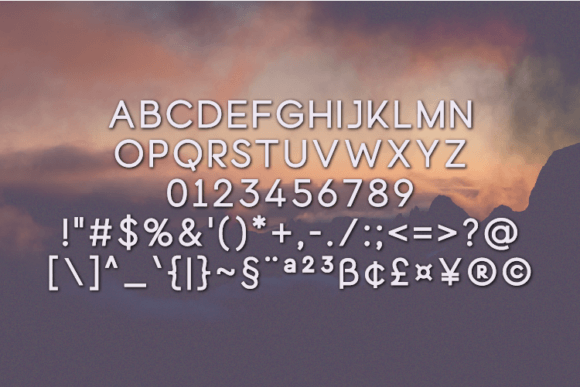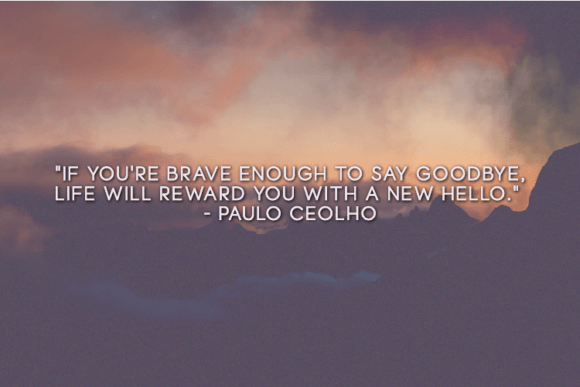
Courtesy Font: Elevate Your Designs with Elegance and Sophistication
Are you tired of using the same old fonts in your designs? Look no further than Courtesy Font, a stunning sans serif font that is sure to complement every project you’re working on. With its clean lines, elegant feel, and versatility, Courtesy Font is the perfect choice for designers and crafters looking to add a touch of sophistication to their work.
A Font for Every Occasion
Courtesy Font is a highly versatile font that can be used for a wide range of projects. Whether you’re creating beautiful headings, gorgeous invitations, stunning logos, or anything in between, this font is sure to impress. Its sleek and modern design makes it perfect for displays, headers, invitations, save-the-dates, weddings, and so much more.
Key Features of Courtesy Font
- Uppercase Alphabet: Courtesy Font features a comprehensive uppercase alphabet, ensuring that you have all the letters you need to create stunning text.
- Numbers and Symbols: In addition to the alphabet, Courtesy Font also includes numbers and symbols, giving you even more flexibility and creative freedom.
- Sans Serif Design: The sans serif design of Courtesy Font gives it a clean and modern feel that is perfect for a wide range of projects.
Why Choose Courtesy Font?
So why should you choose Courtesy Font for your next project? Here are just a few reasons:
- Elegance and Sophistication: Courtesy Font adds a touch of elegance and sophistication to any project, making it perfect for designers and crafters who want to create high-end designs.
- Versatility: With its wide range of uses and comprehensive character set, Courtesy Font is a versatile font that can be used for everything from headings and invitations to logos and more.
- Easy to Read: The clean lines and simple design of Courtesy Font make it easy to read, even at small sizes.
How to Use Courtesy Font in Your Designs
Using Courtesy Font in your designs is easy. Here are a few tips to get you started:
- Pair it with Other Fonts: Courtesy Font pairs well with a wide range of other fonts, so don’t be afraid to experiment and find the perfect combination for your project.
- Experiment with Sizes and Colors: Courtesy Font looks great at a wide range of sizes and in a variety of colors, so don’t be afraid to get creative and try out different options.
- Use it for Headings and Titles: Courtesy Font is perfect for headings and titles, so consider using it to add a touch of elegance and sophistication to your designs.
Courtesy Font is a must-have for designers and crafters who want to create high-end designs. Whether you’re working on a professional project or a personal craft, this font is sure to impress. Its versatility, elegance, and sophistication make it the perfect choice for anyone looking to add a touch of class to their designs.
In conclusion, Courtesy Font is a stunning sans serif font that is sure to complement every project you’re working on. With its clean lines, elegant feel, and versatility, it’s the perfect choice for designers and crafters looking to add a touch of sophistication to their work. So why wait? Download Courtesy Font today and start creating beautiful designs that will leave a lasting impression.